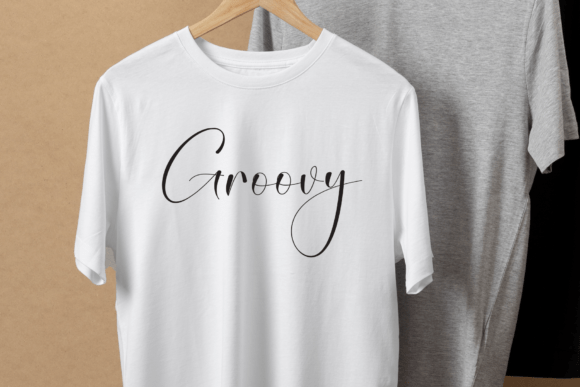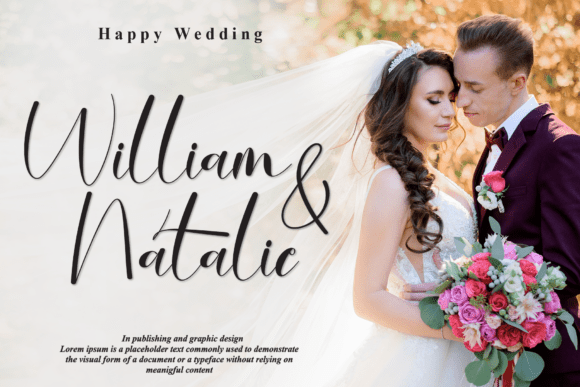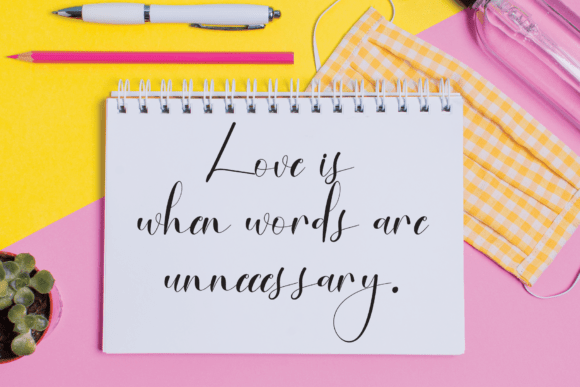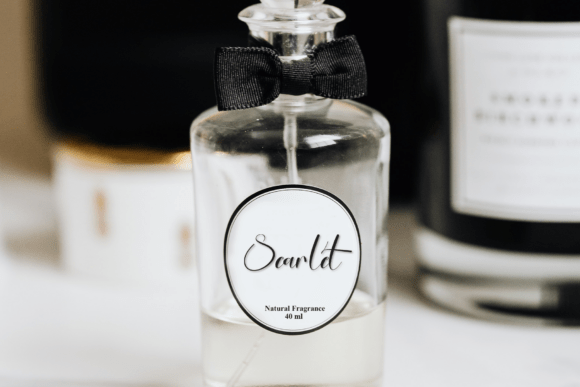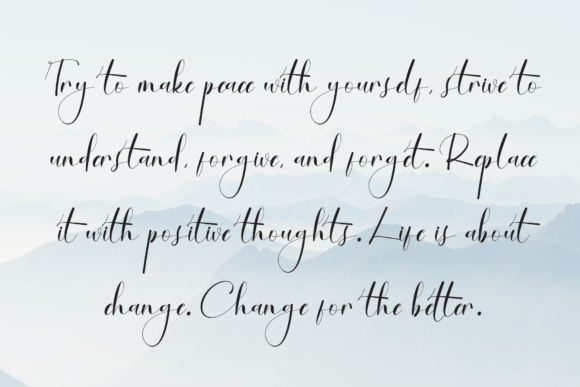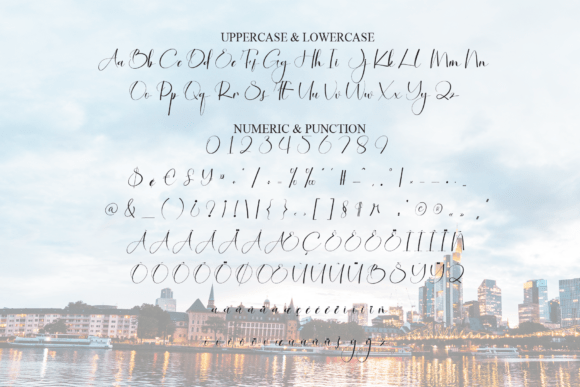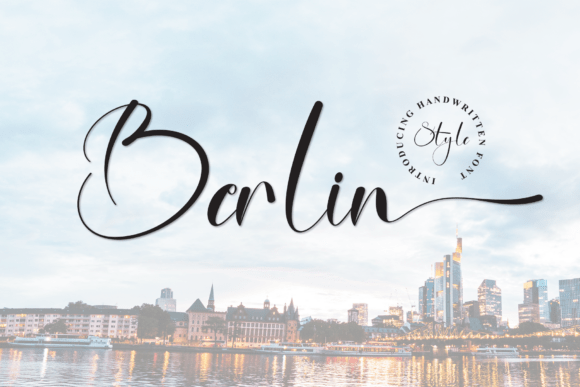
Introducing Berlin Font: Elevate Your Designs with Creative Flair
Are you a designer, crafter, or creative enthusiast looking for a unique and stylish font to elevate your projects? Look no further than Berlin Font, a specially crafted typeface designed to provide an extraordinary experience. With its latest style letters, Berlin Font is perfect for a wide range of applications, from wall displays and wedding invitations to social media post logos, advertisements, and more.
Unleash Your Creativity with Berlin Font
Berlin Font is more than just a font – it’s a creative tool that can help you add a touch of elegance and sophistication to your designs. Whether you’re working on a personal project or a professional assignment, this font is designed to help you stand out from the crowd. With its unique and stylish letters, Berlin Font can add a touch of personality to any design, making it perfect for:
• Wall displays and signage
• Social media post logos and graphics
• Advertisements and marketing materials
• Product packaging and design
• Labels and branding
• Photography and watermarks
• Invitations and event materials
• Stationery and paper goods
Why Choose Berlin Font?
So why choose Berlin Font over other fonts on the market? Here are just a few reasons:
• Unique and stylish design: Berlin Font features a unique and stylish design that’s sure to elevate your projects and make them stand out.
• Versatility: This font is perfect for a wide range of applications, from personal projects to professional assignments.
Tips for Using Berlin Font
To get the most out of Berlin Font, here are a few tips:
• Experiment with different sizes and colors: Berlin Font looks great in a variety of sizes and colors, so don’t be afraid to experiment and find the perfect combination for your project.
• Pair with other fonts: Berlin Font pairs well with other fonts, so try combining it with a sans-serif font for a unique and stylish look.
• Use it for headlines and titles: Berlin Font is perfect for headlines and titles, where its unique and stylish design can really shine.